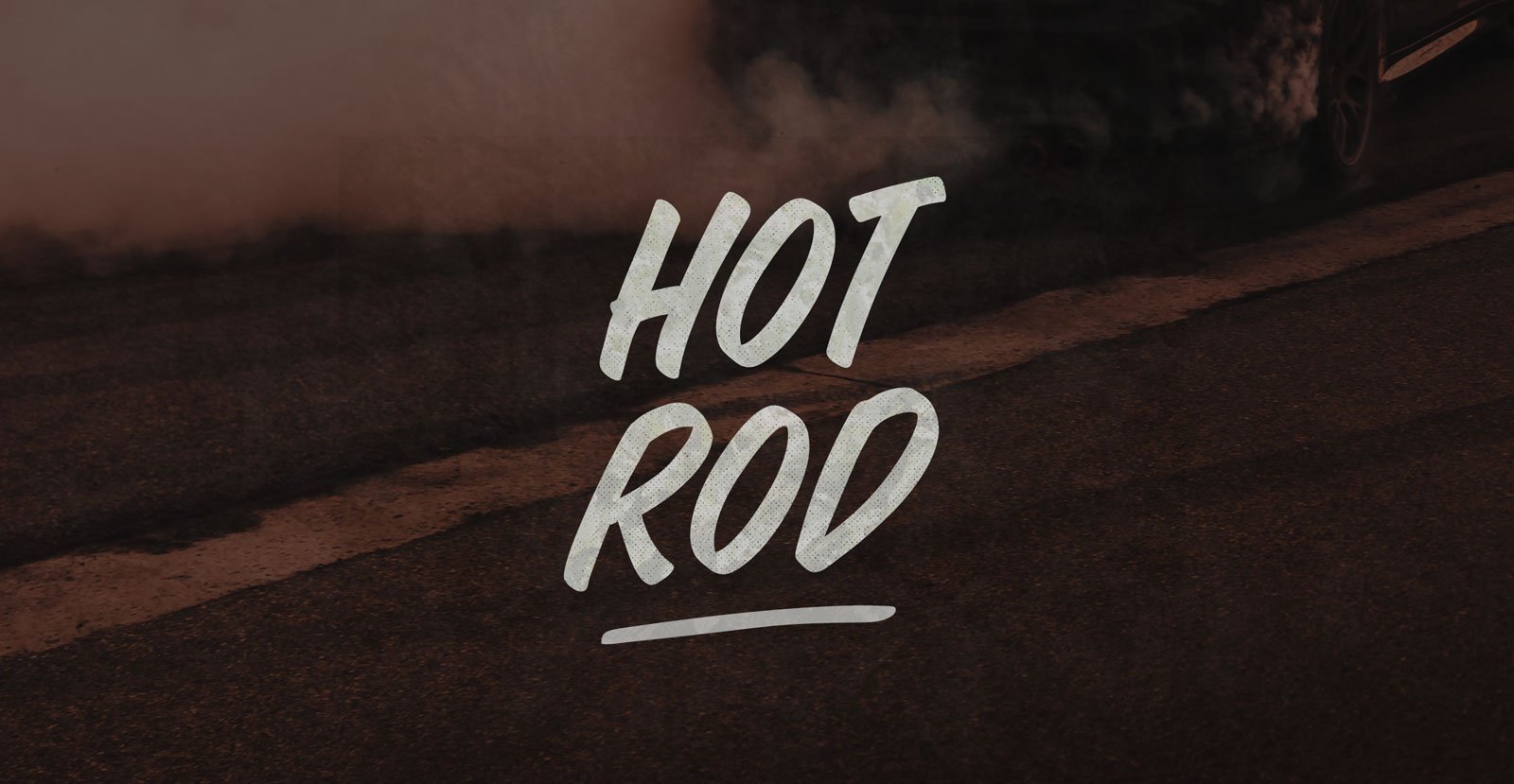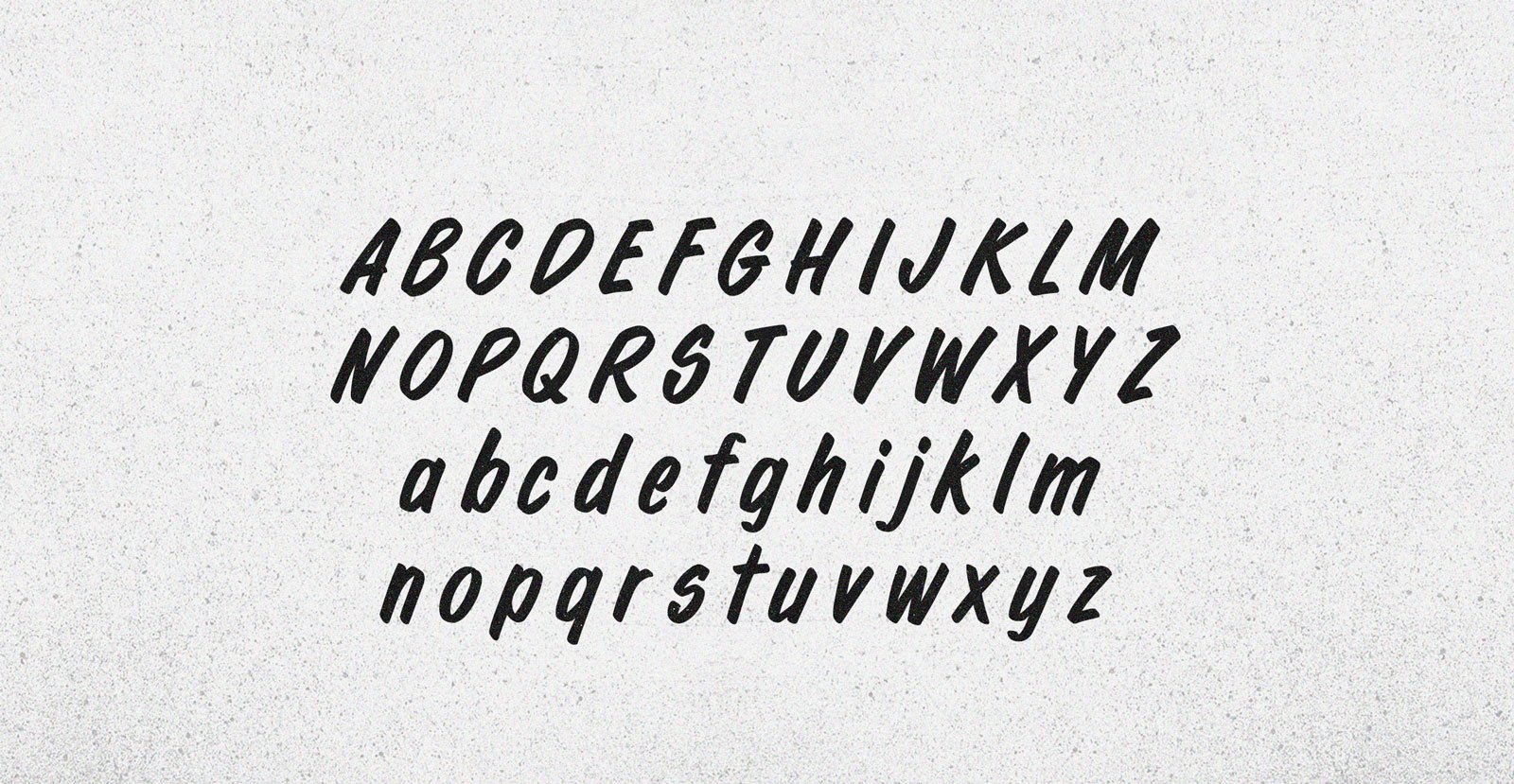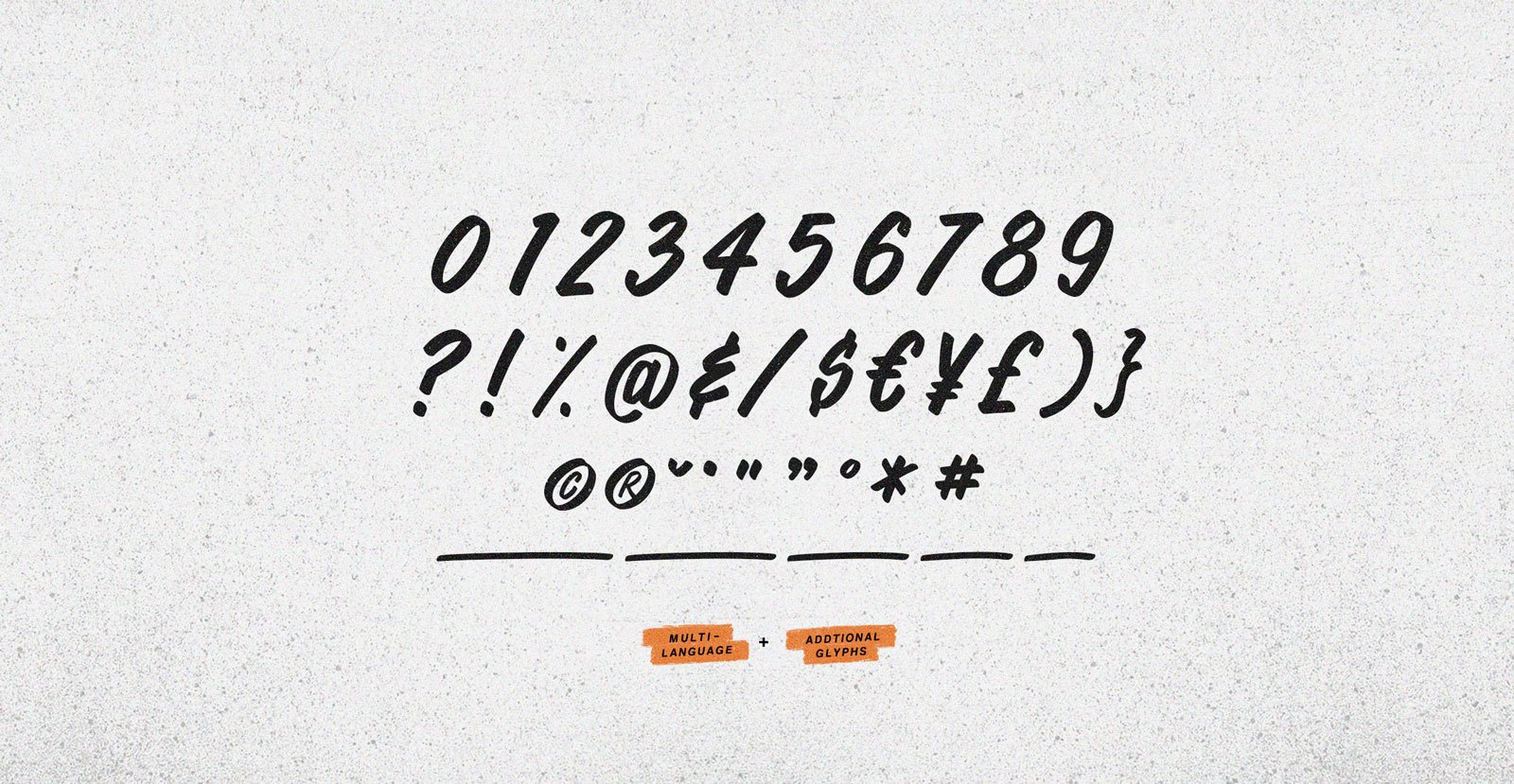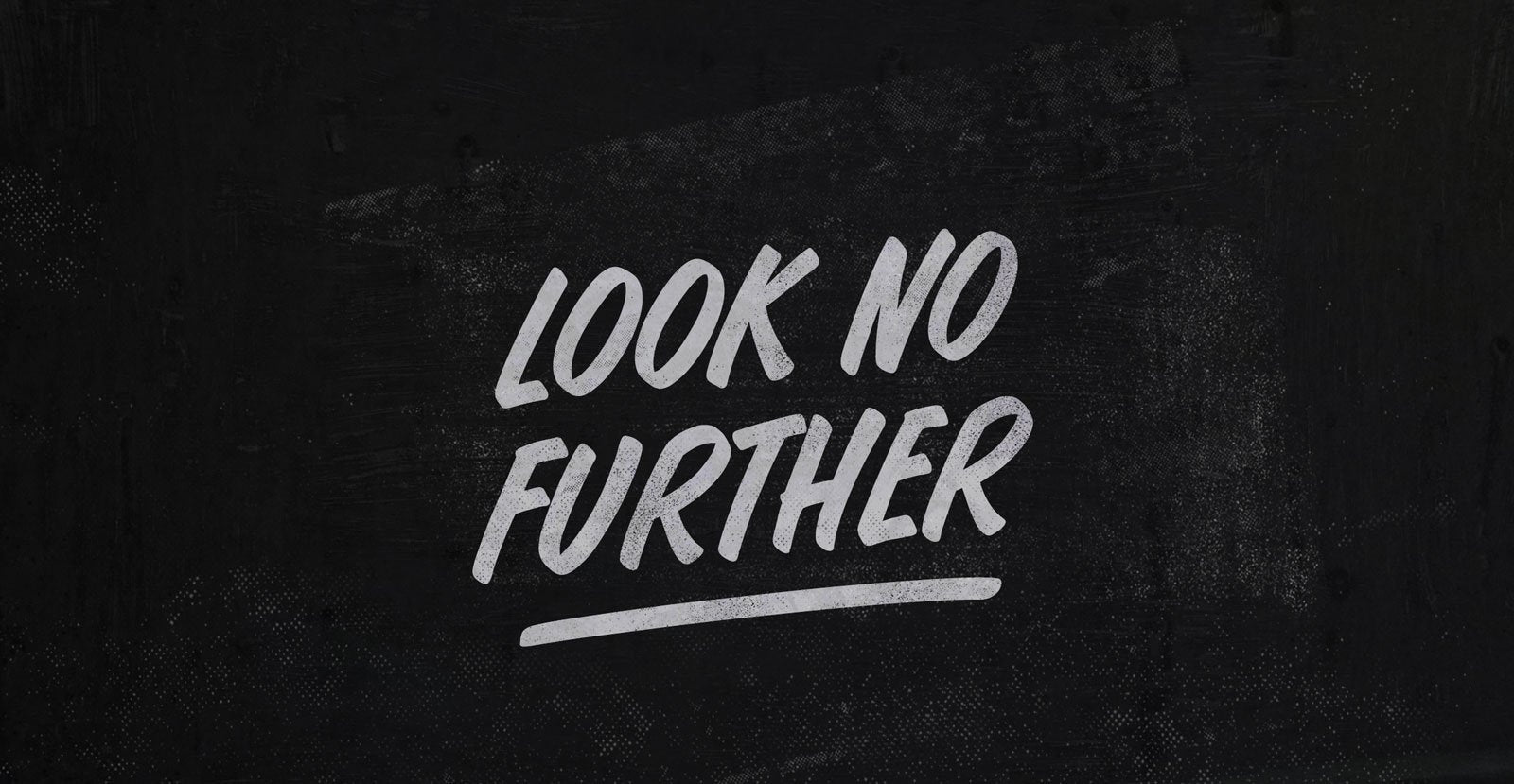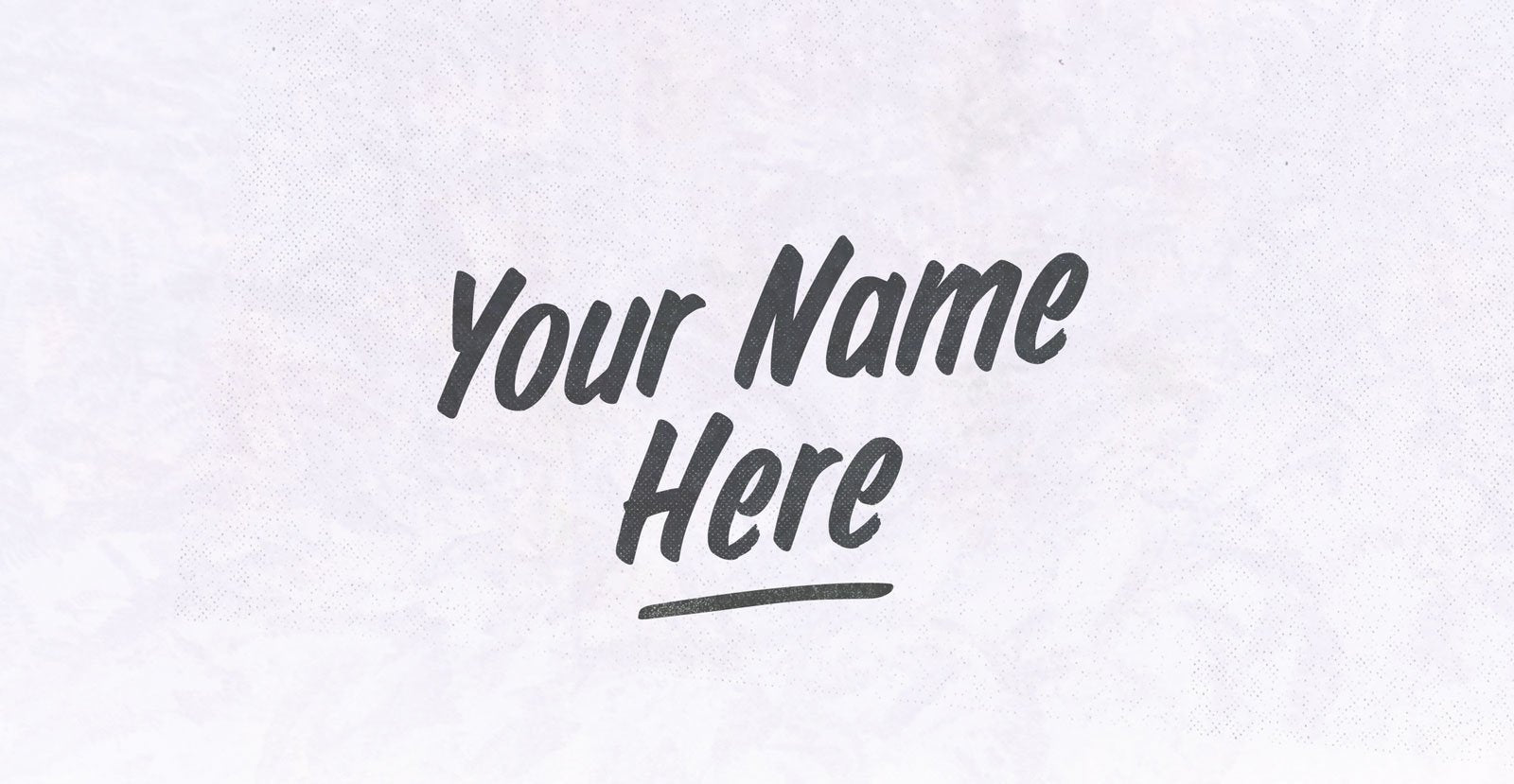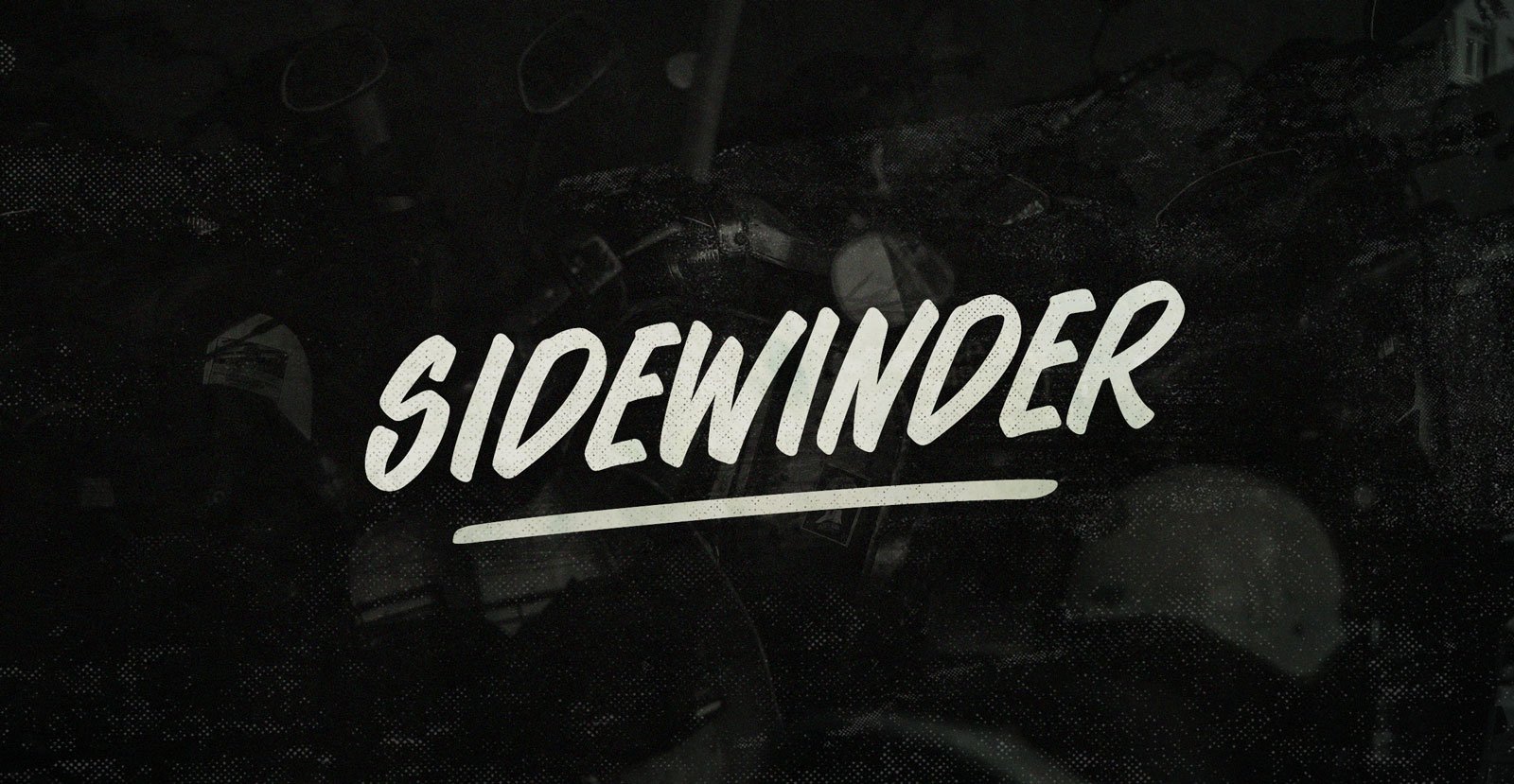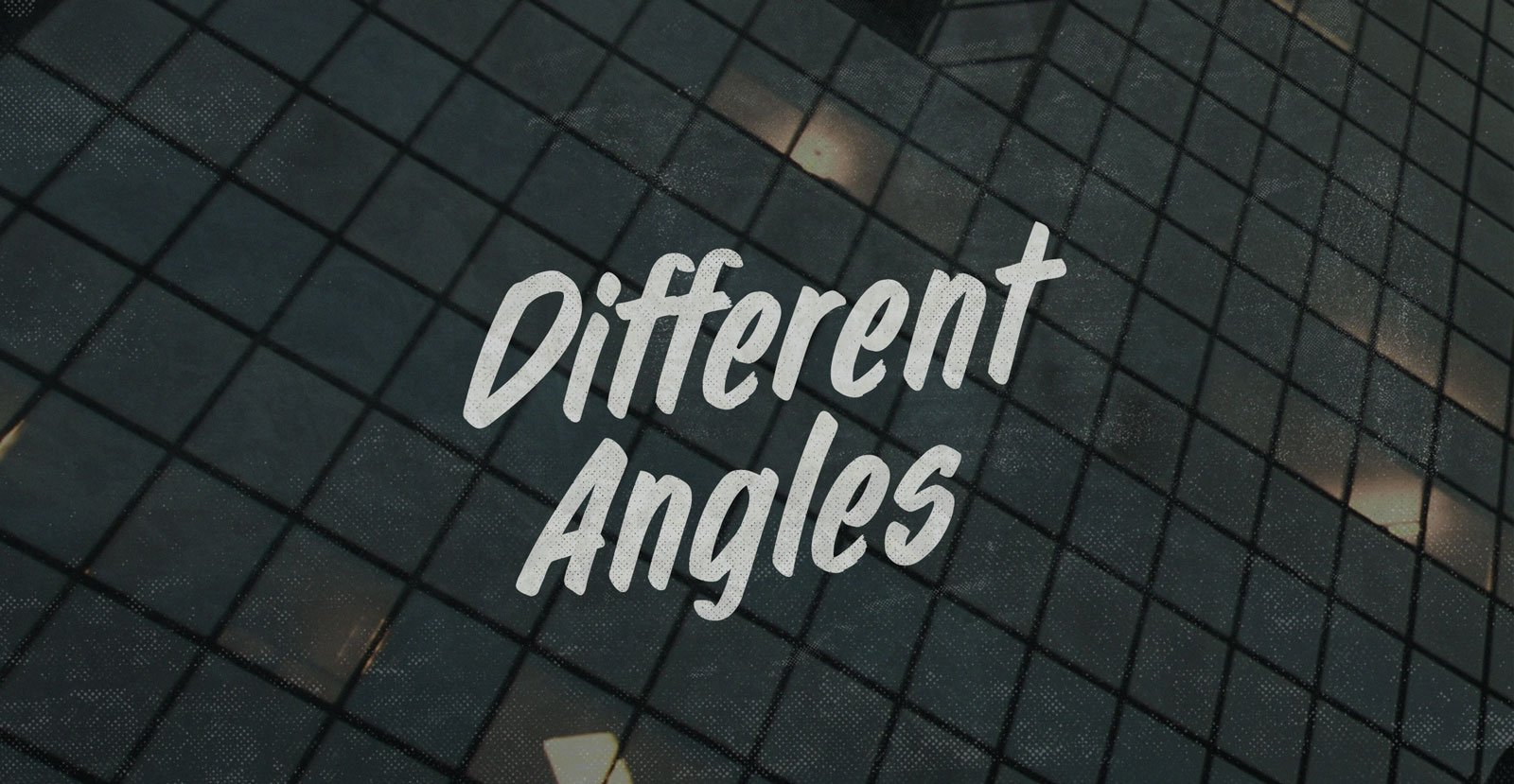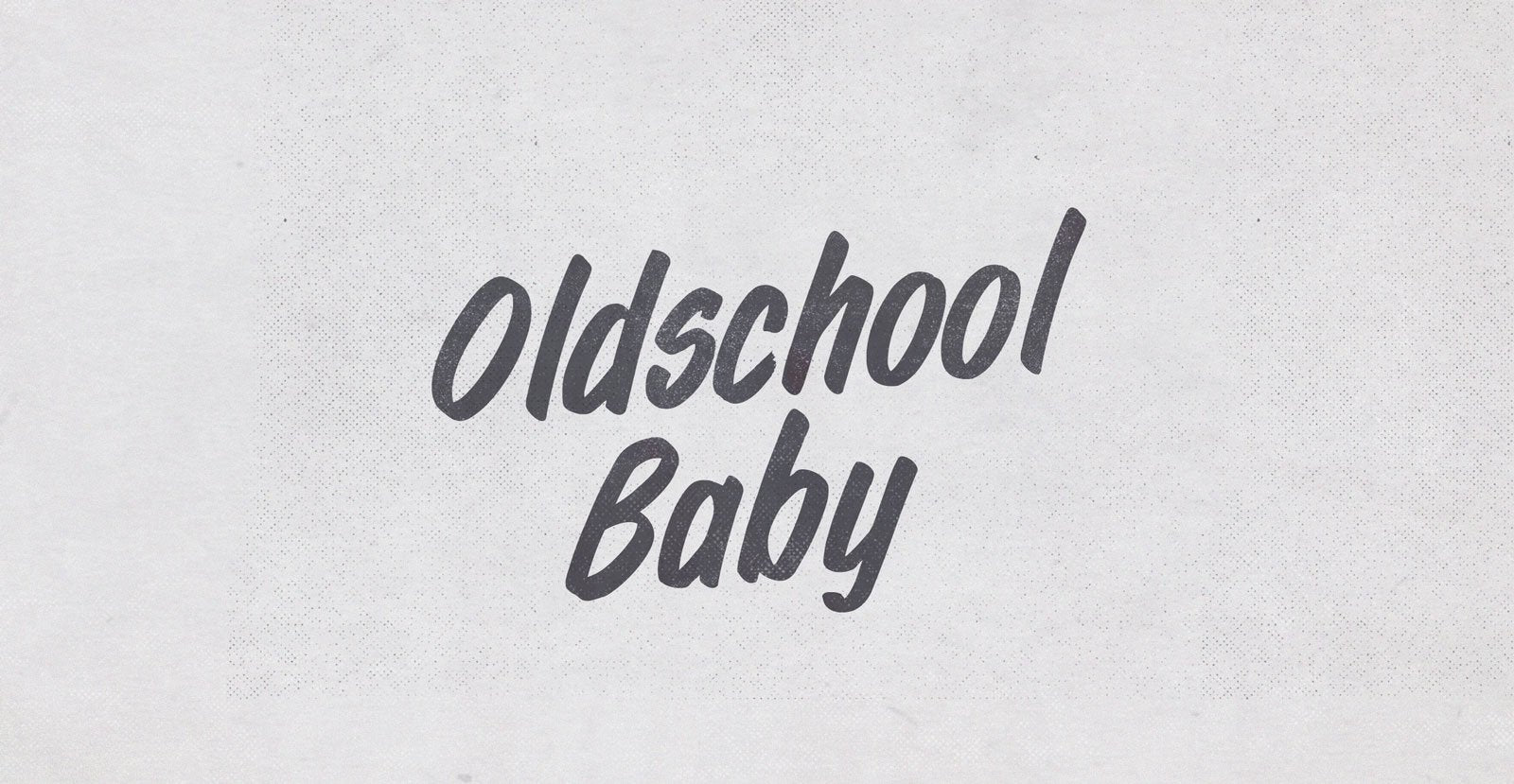
Hot Rod
Here’s Rodney with a light bulb going off upstairs like a fluorescent tube in the flesh. Now, Hot Rod rolls out of control like a graphite moderator missed its shift babysitting fission. Point is, that’s one spicy meat stick.